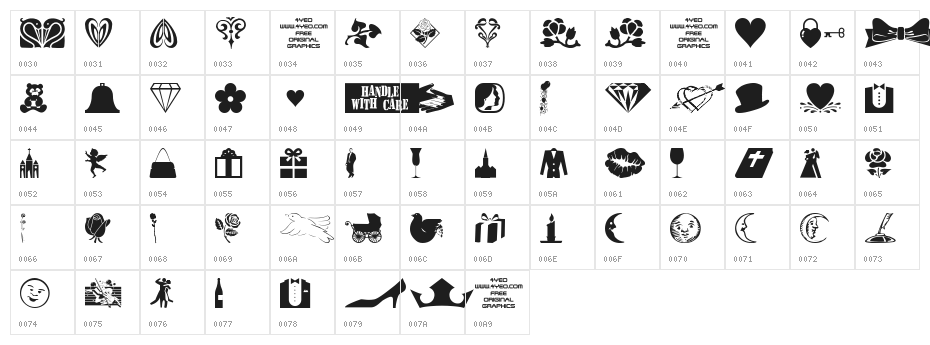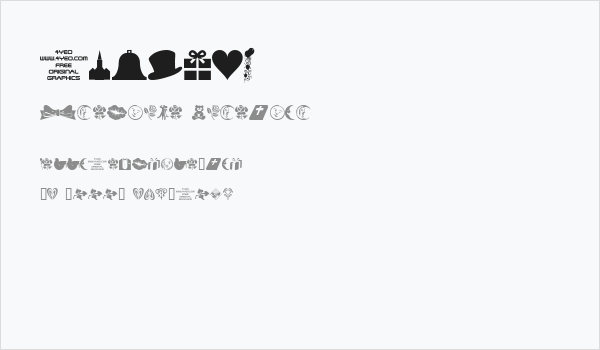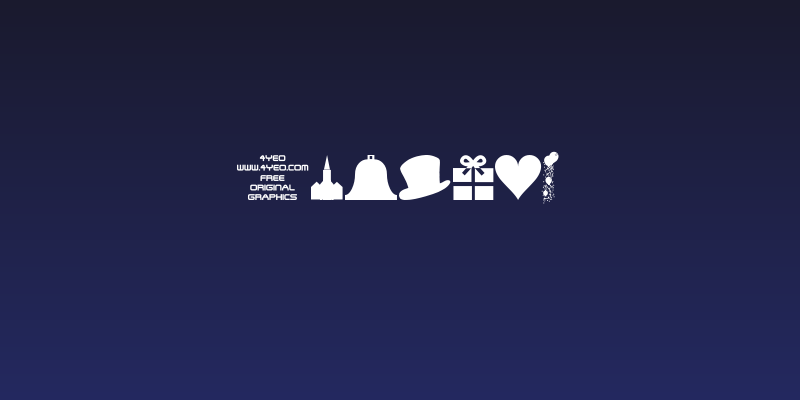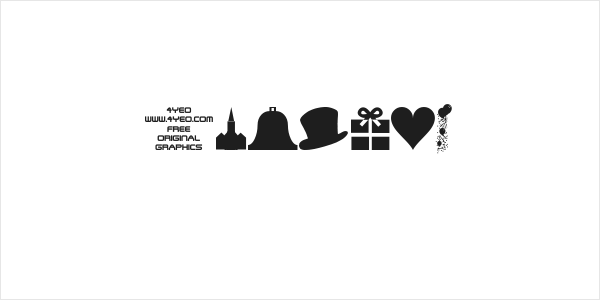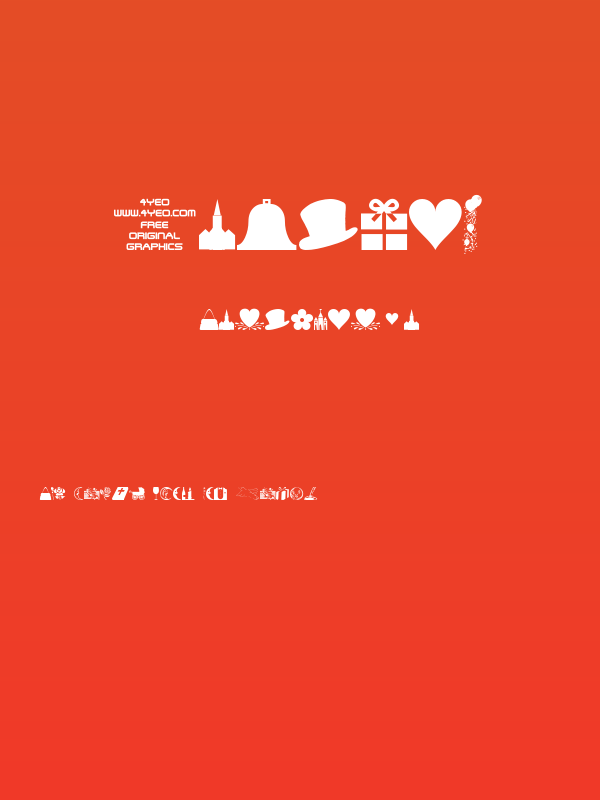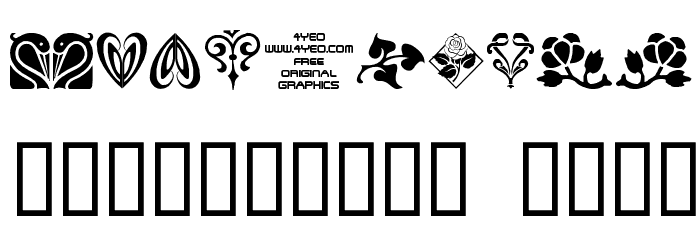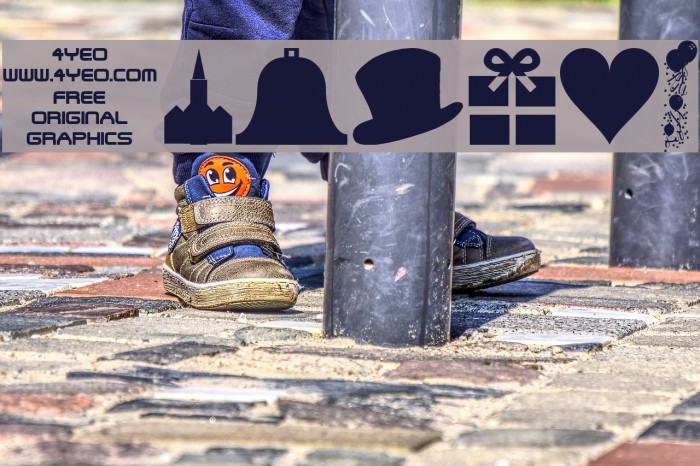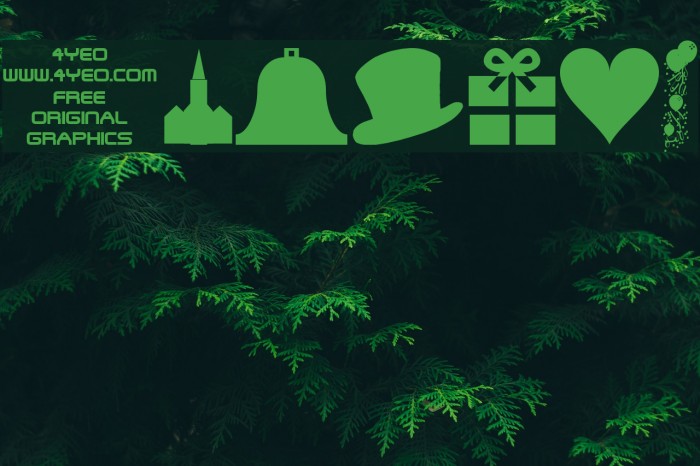
4YEOVAL Font
4YEOVAL Description
A decorative dingbat font featuring a wide variety of wedding, romantic, and celebration-themed icons such as hearts, rings, flowers, gifts, doves, and other related symbols. The glyphs are bold, solid, and highly stylized, designed for use as graphic elements rather than traditional alphanumeric characters.
| Use Case | Icons, Decorative elements, Themed graphics |
| Proposed Projects | Wedding invitations, event flyers, greeting cards, scrapbooking, decorative borders, themed party materials. |